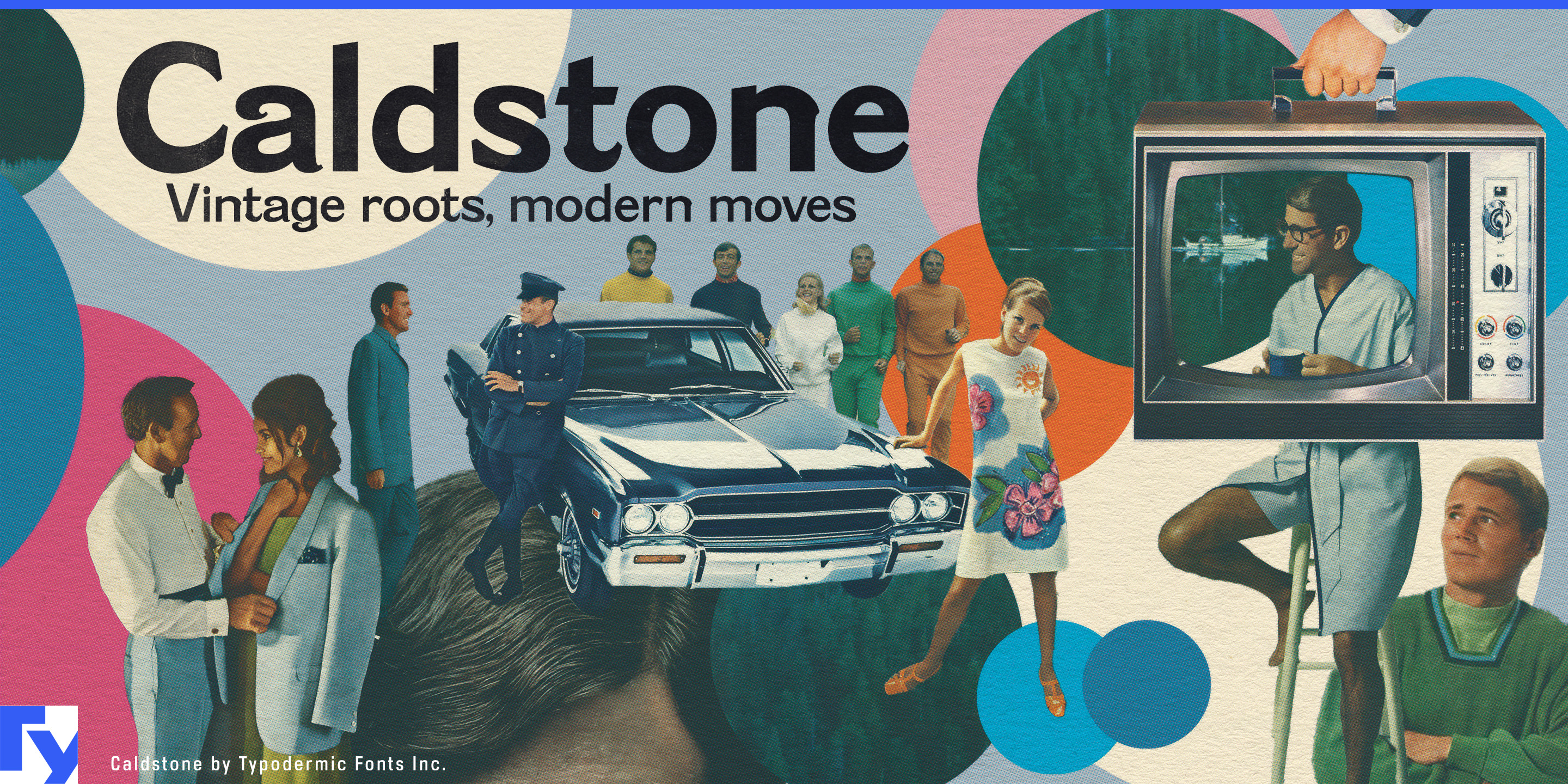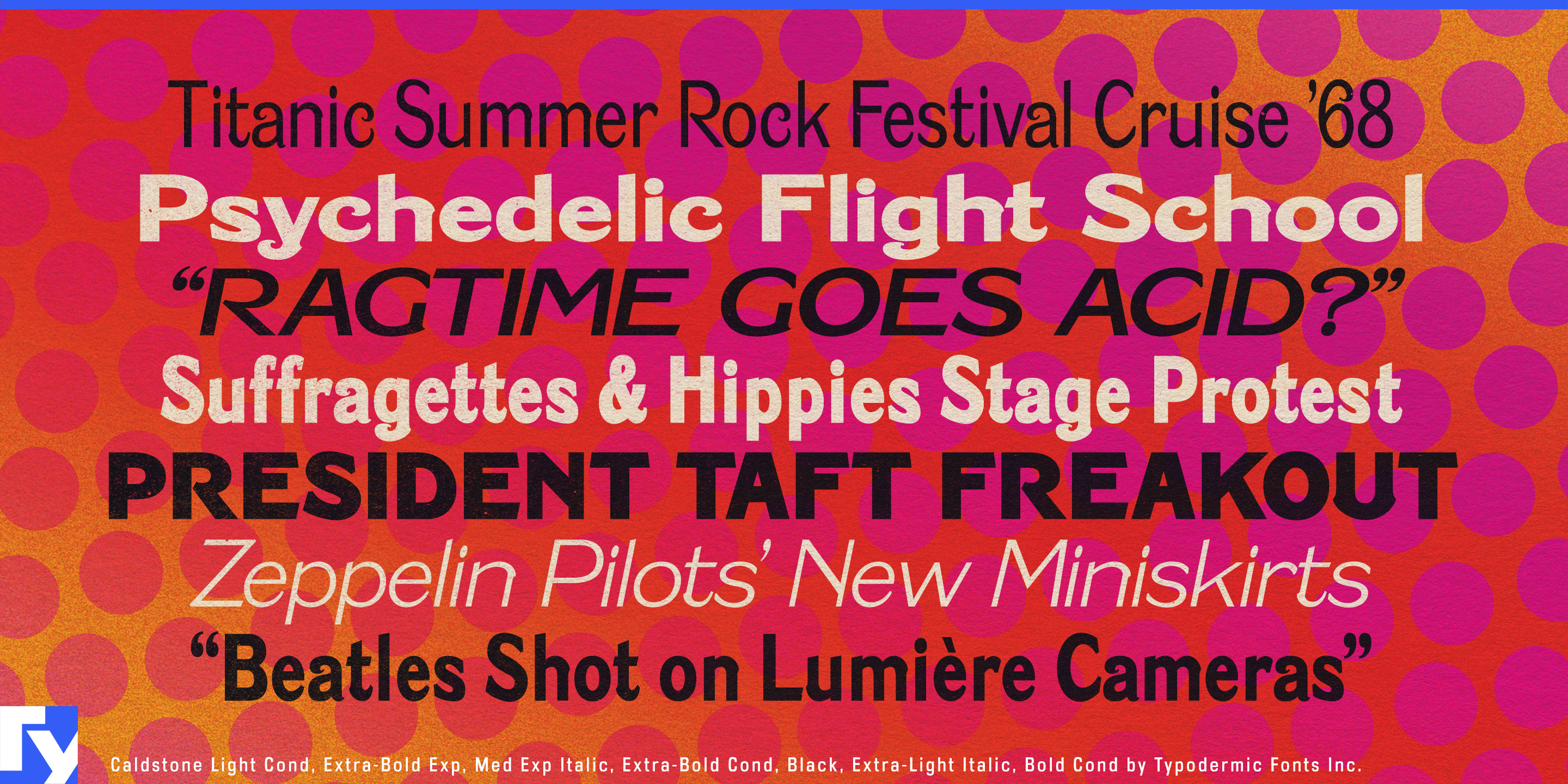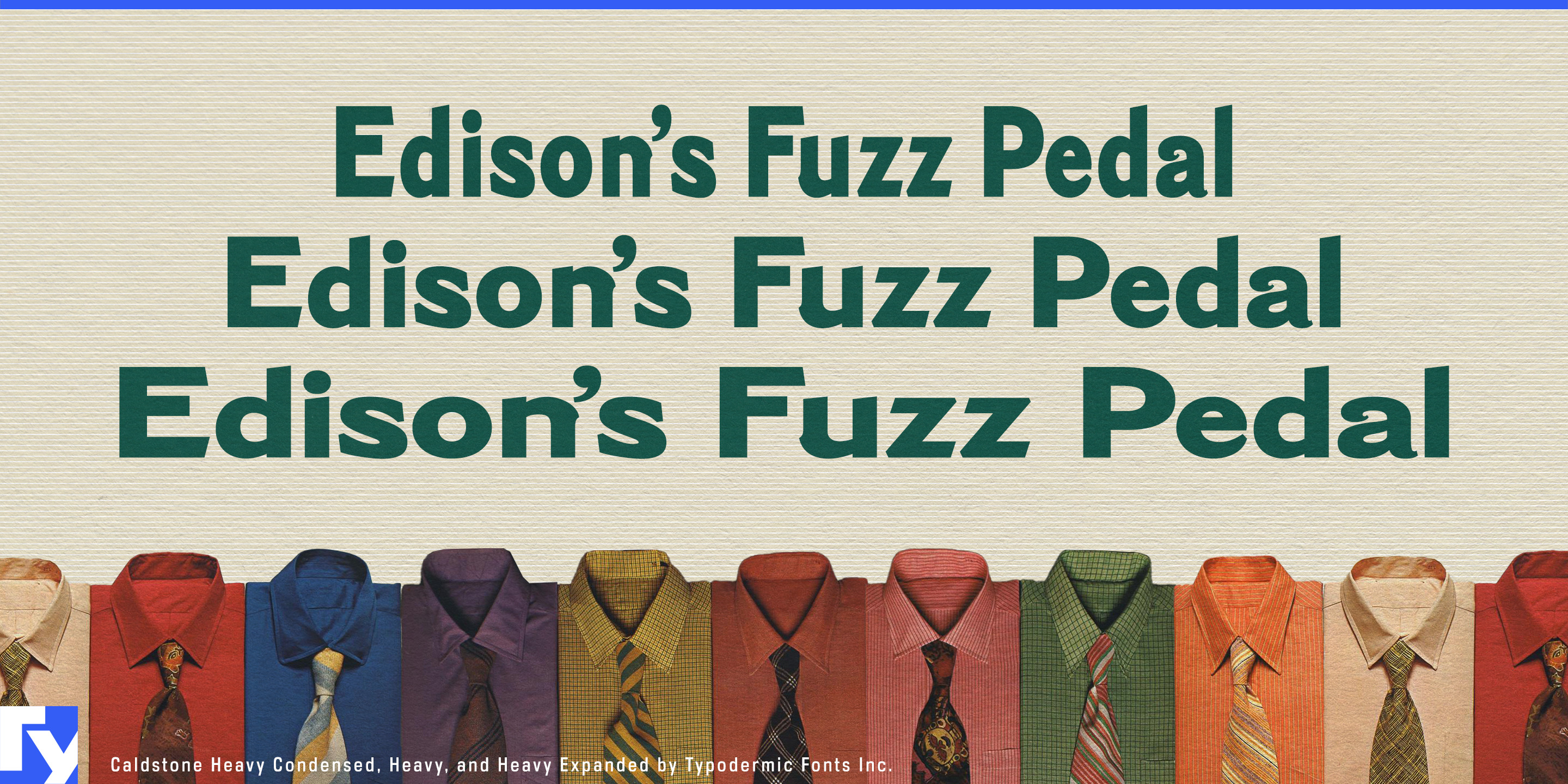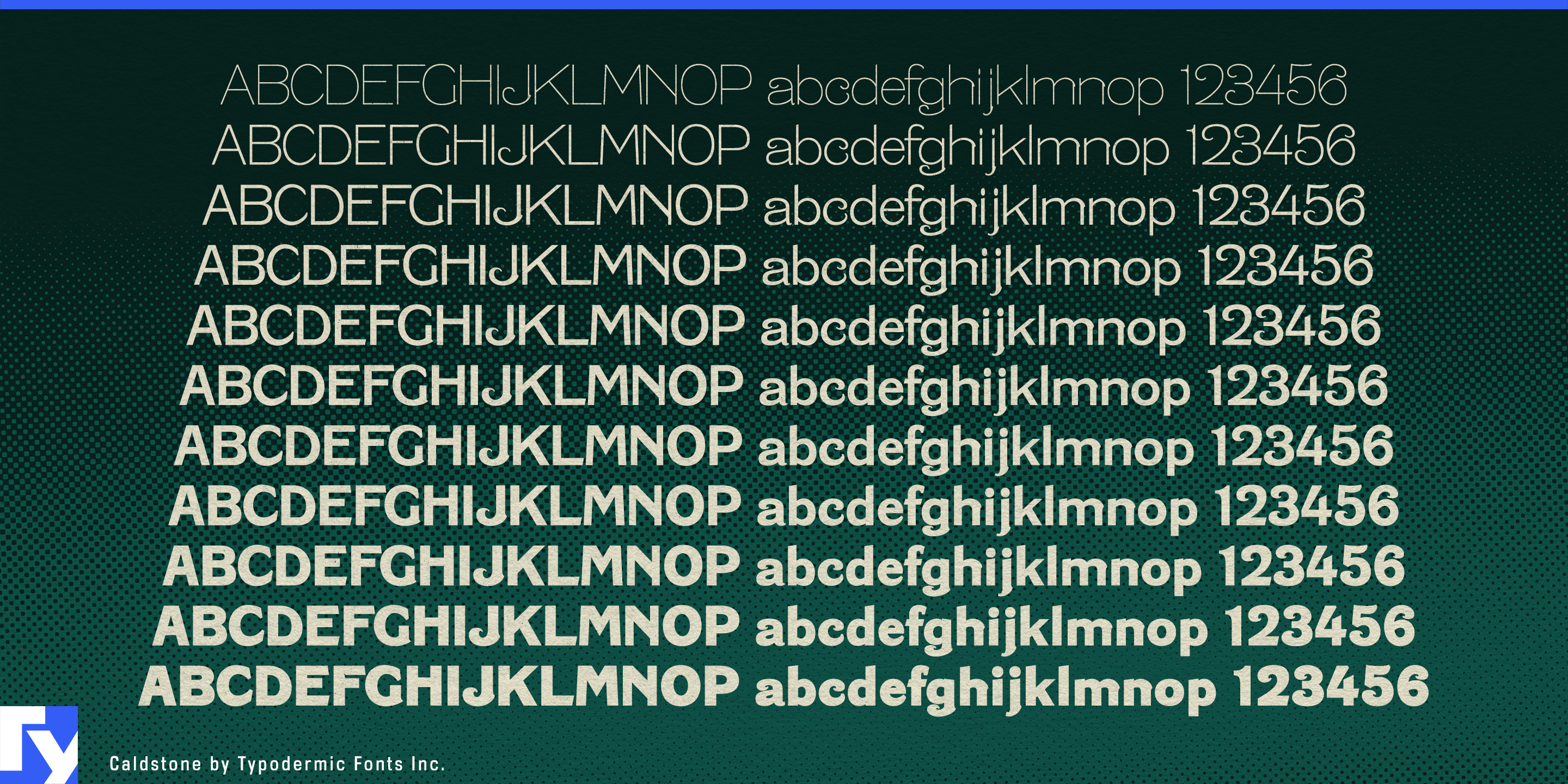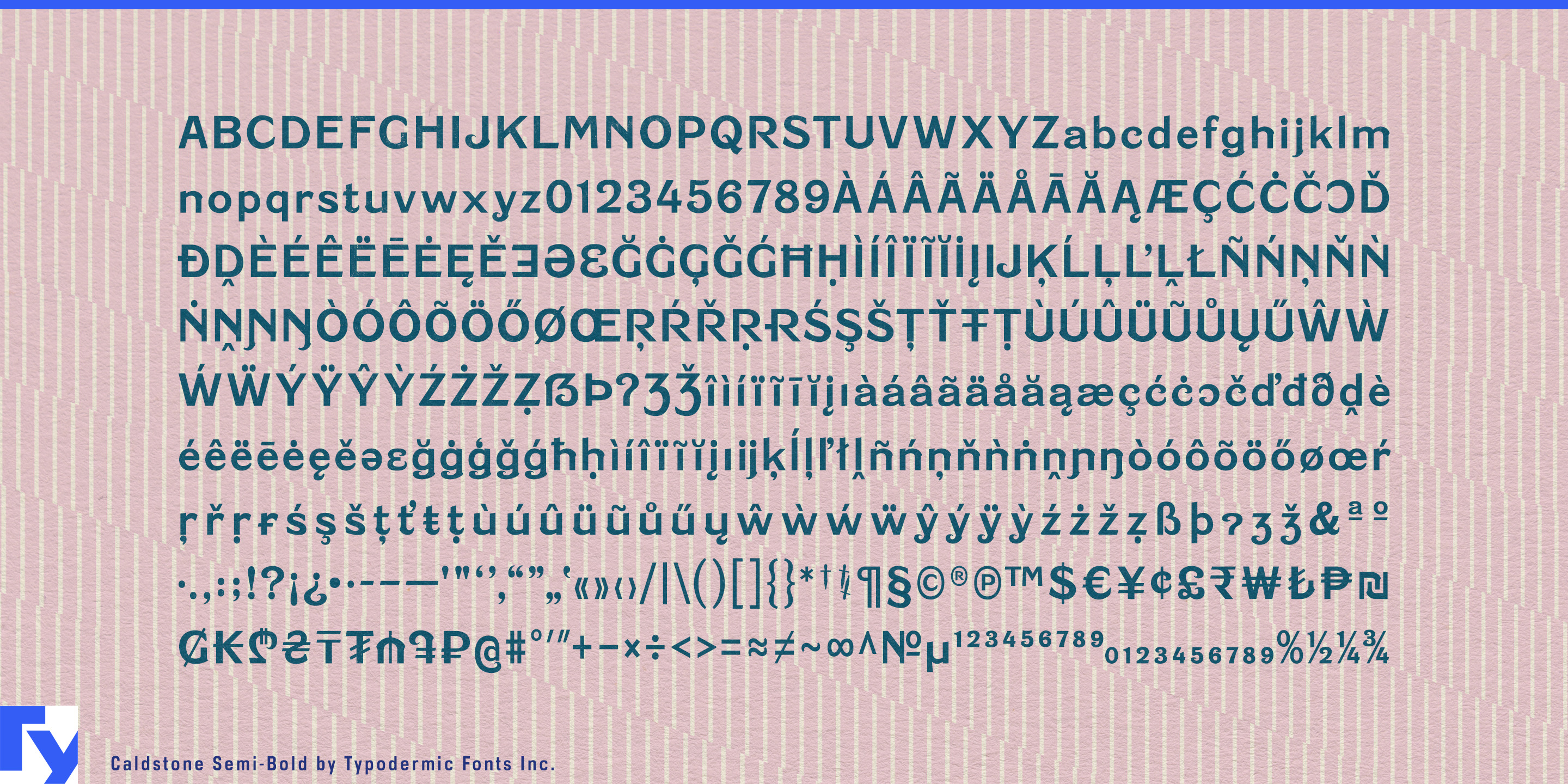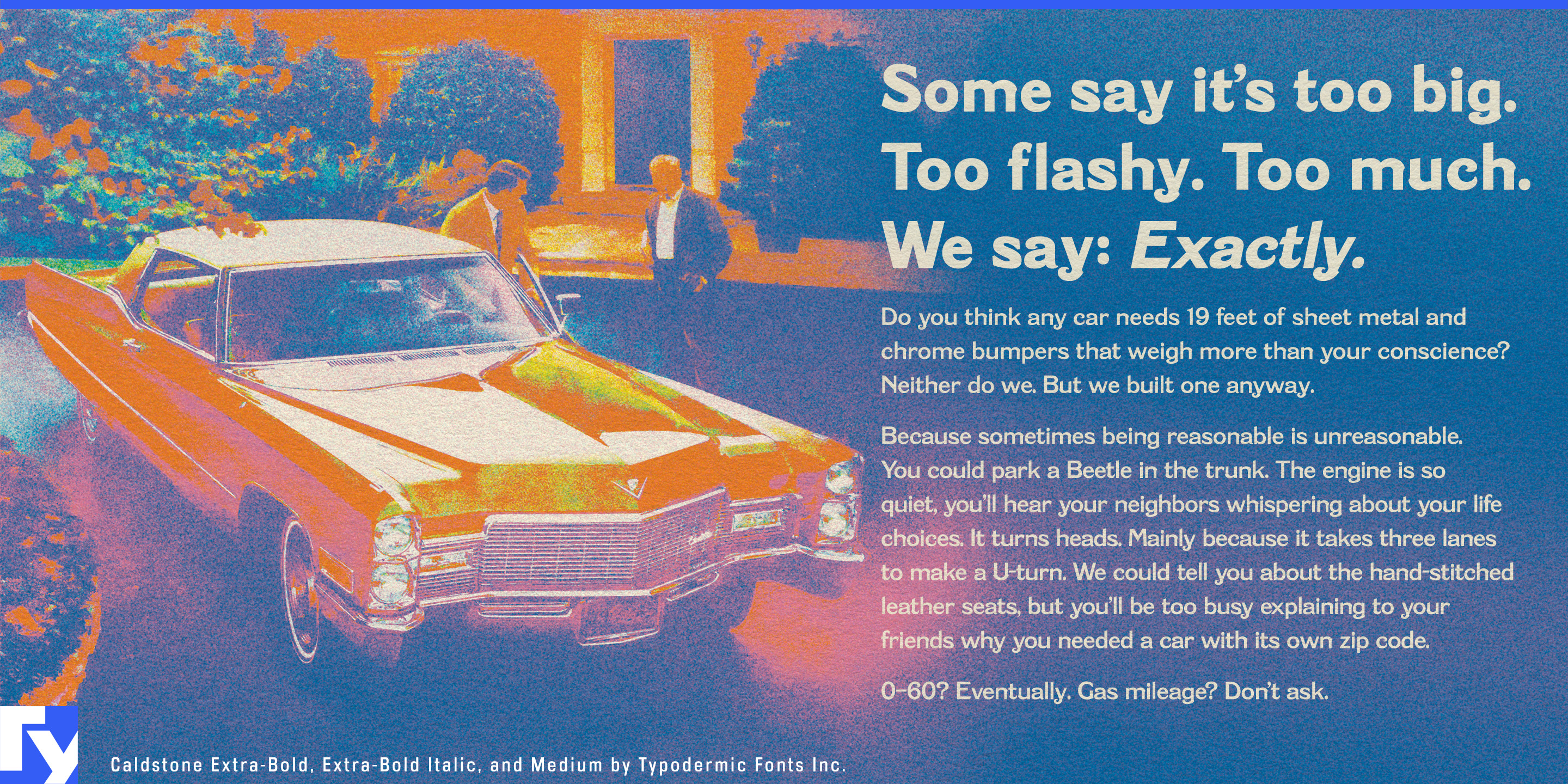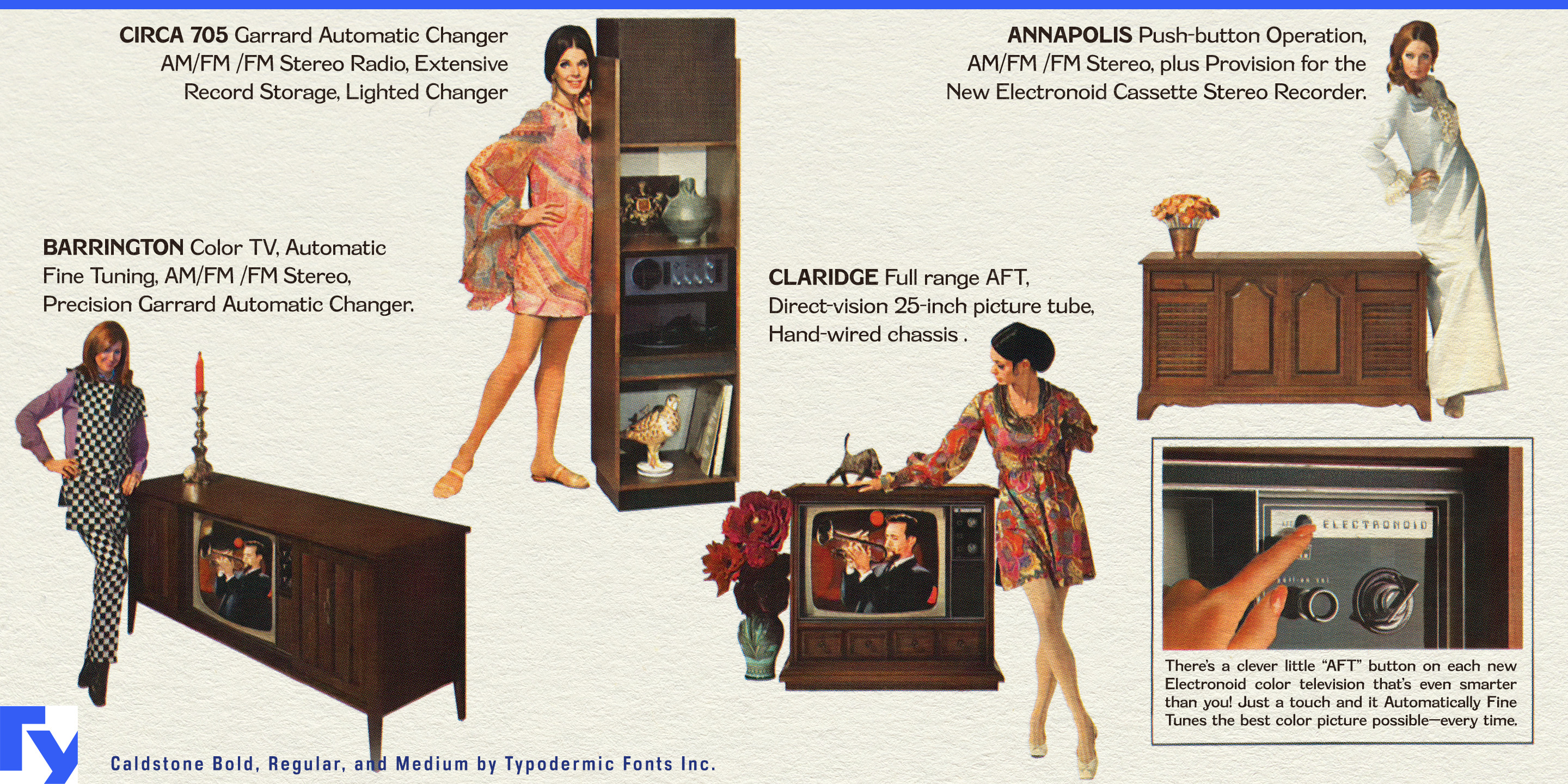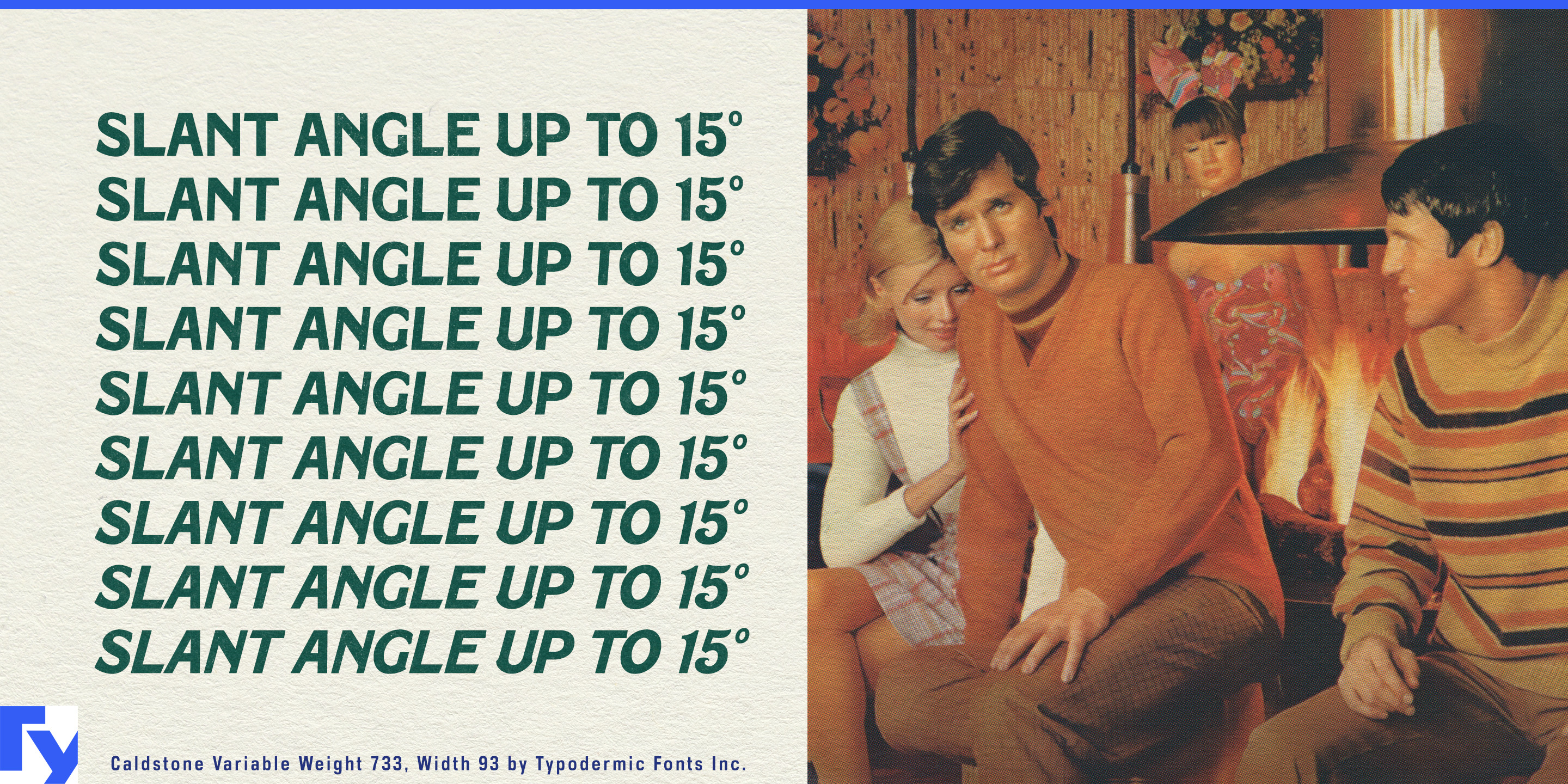
Caldstone
Caldstone is a display sans-serif typeface with roots in the expressive lettering of the 1910s, filtered through the ornate revivalism of the 1960s. Decorative curls and spurs—more often seen in serif faces—give it a distinctive character, while clean proportions and careful spacing make it comfortable in modern layouts. It is not a revival of a single antique typeface; it is a reimagining that blends early twentieth-century charm with twenty-first-century versatility.
The design draws on the Edwardian styles that resurfaced in the late-1960s counterculture alongside ragtime nostalgia, kaleidoscopic art, and ornate typography—a deliberate reaction against mid-century modernist restraint. Caldstone carries that same warmth and exuberance forward, offering an alternative to the cool detachment of minimalist sans serifs.
With 66 styles across three widths—Condensed, Normal, and Expanded—and a weight range from Hairline to Black, Caldstone is equipped for both subtle refinement and high-impact statements. Matching italics add further range, making it at home in editorial design, branding, packaging, and display typography.
For designers who want even more control, Caldstone Variable offers width, weight, and slant in a single file, unlocking 110 possible style combinations.
Caldstone is built to bridge eras: equally comfortable evoking a century-old poster or anchoring a contemporary digital interface. It is a typeface with history in its bones and modern design sense at its core.